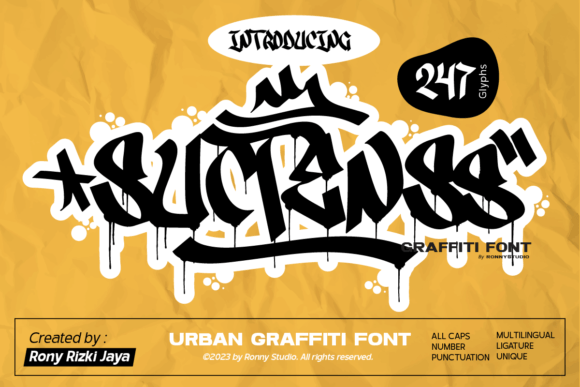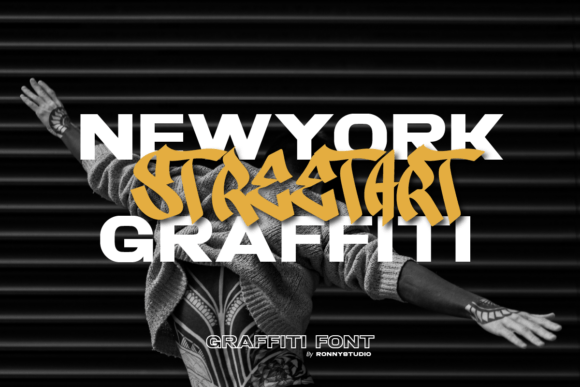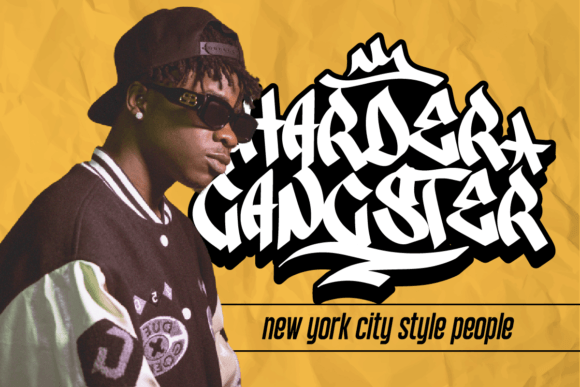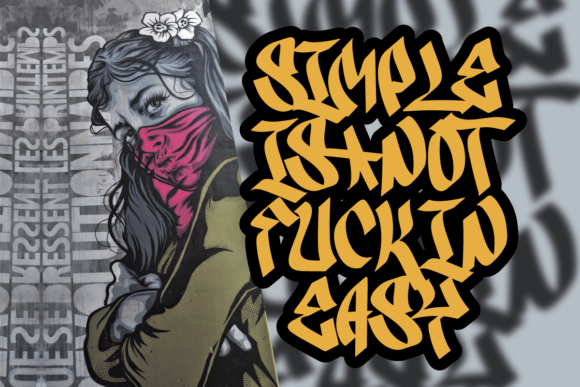
Suctenss Font
About the Suctenss Font
We are excited to introduce Suctenss Font, a must-have typeface for any serious designer. Suctenss is an edgy and urban graffiti font that brings street art to your designs. With its bold and rough design, this font is perfect for creating an urban feel. Ideal for logos, posters, and other designs that require a raw and gritty vibe.
Suctenss Font Example